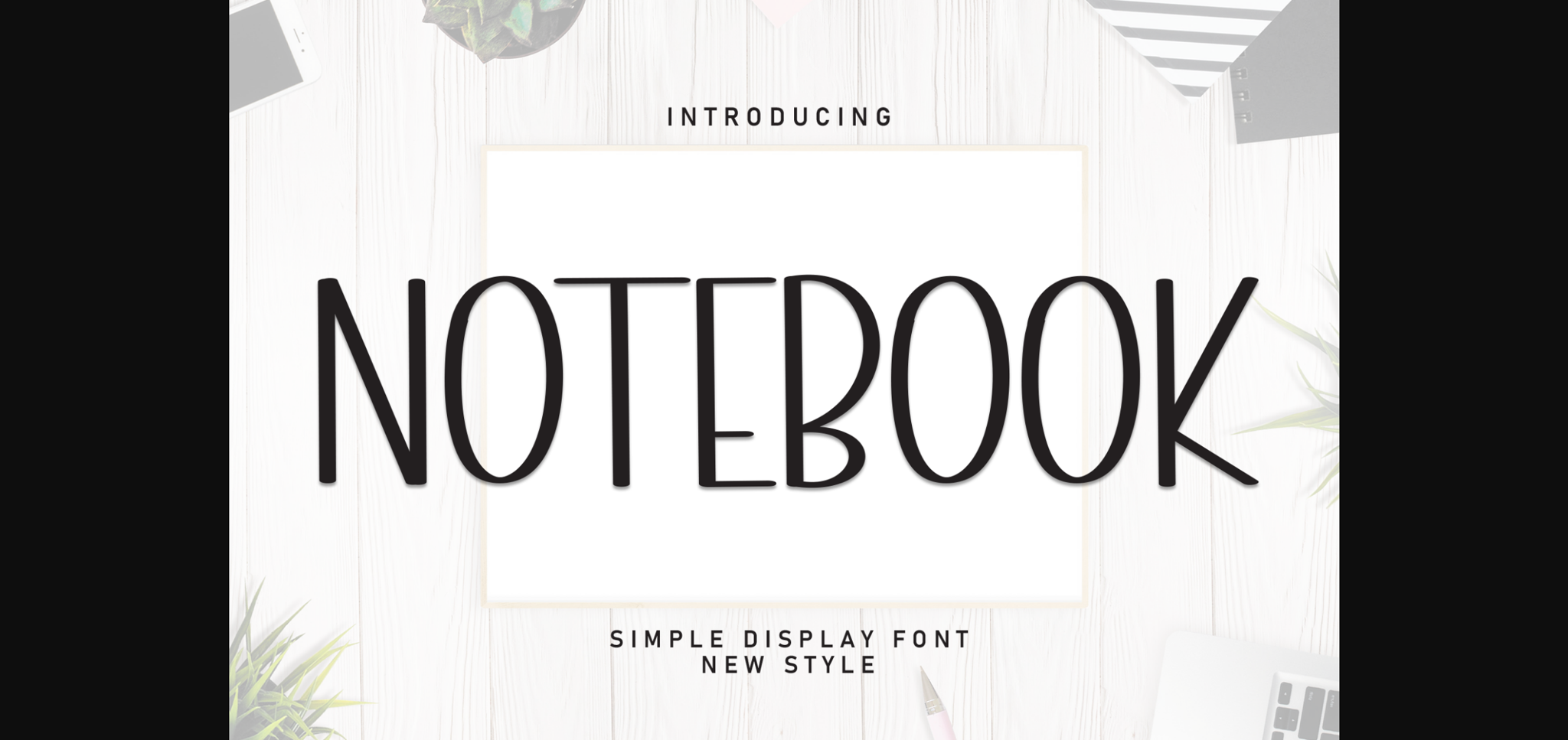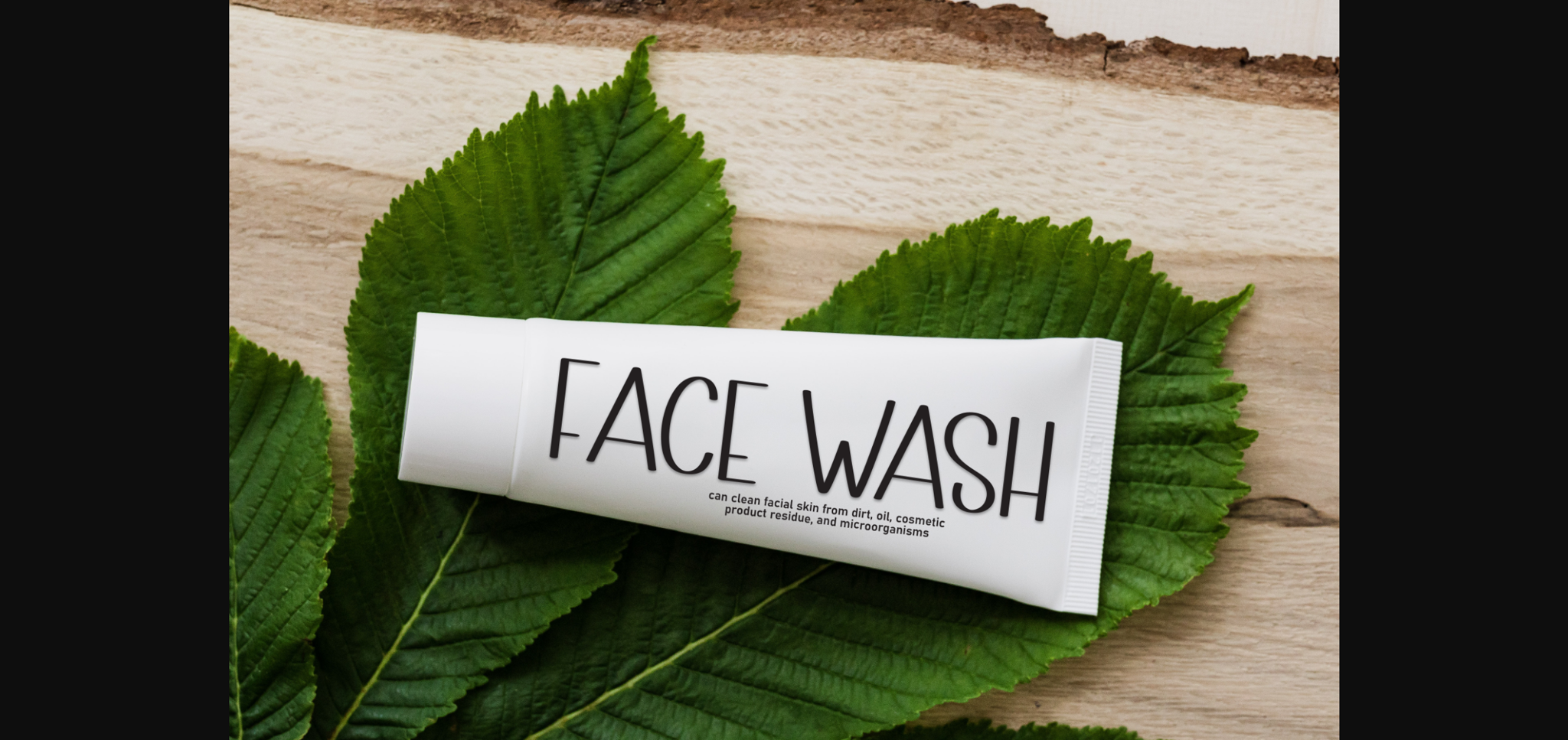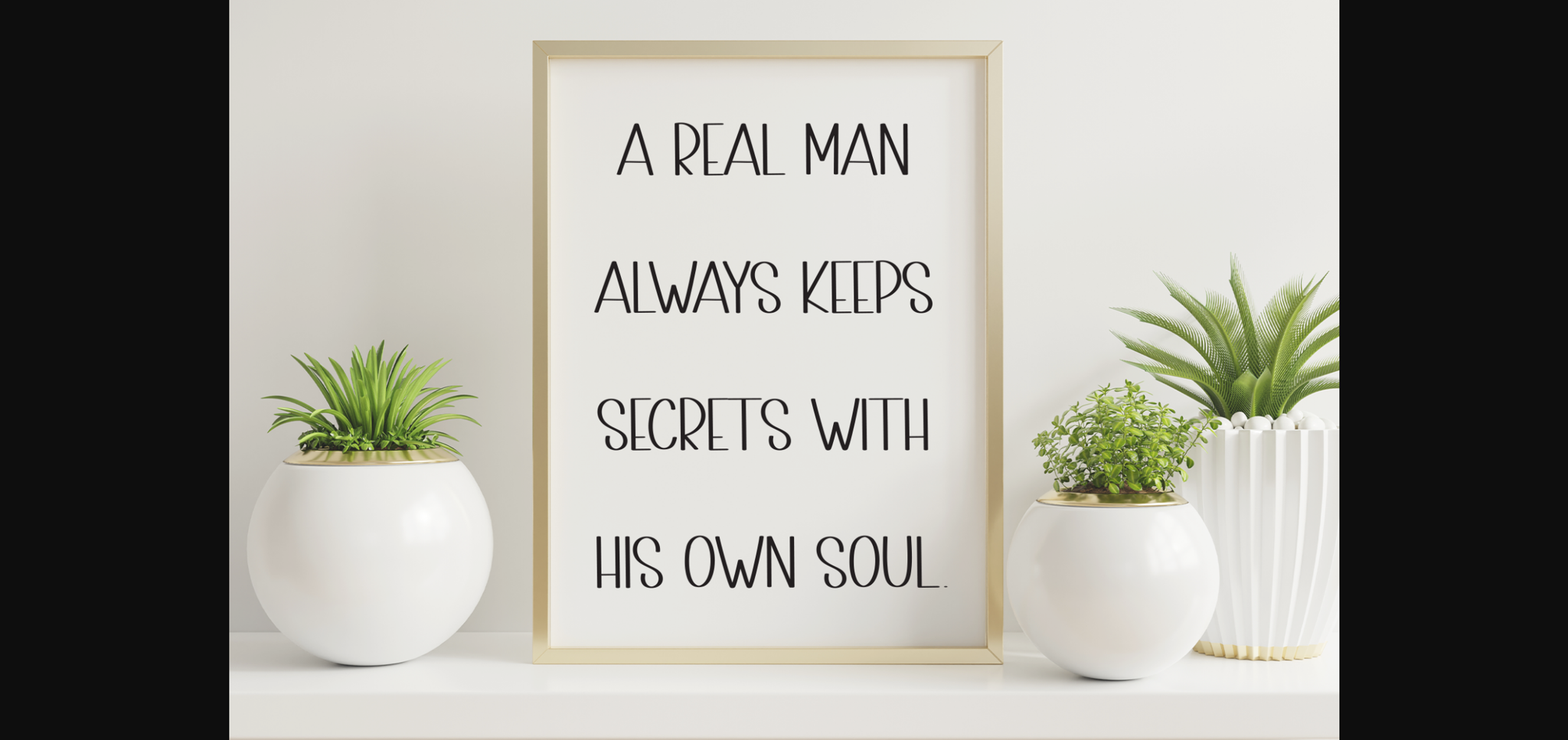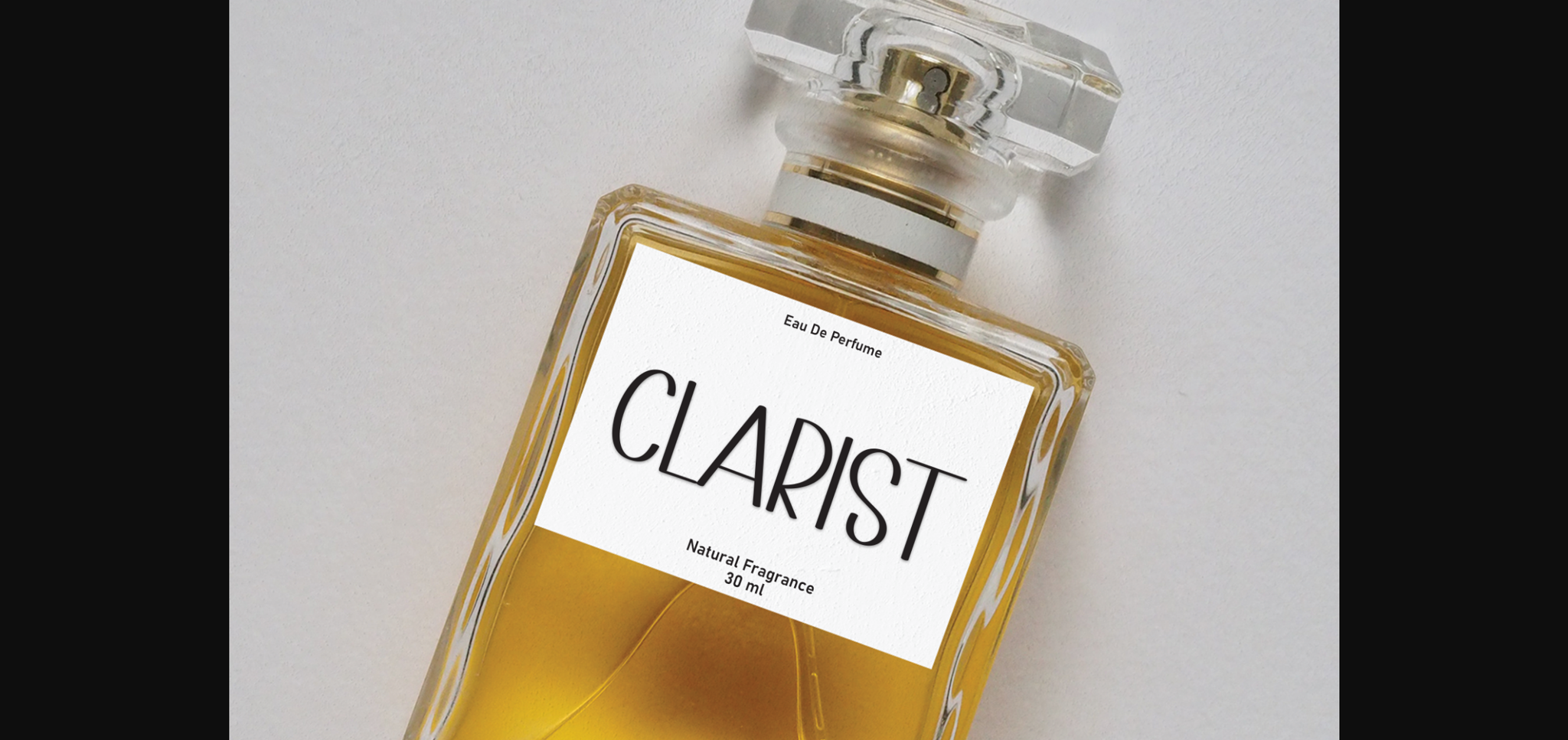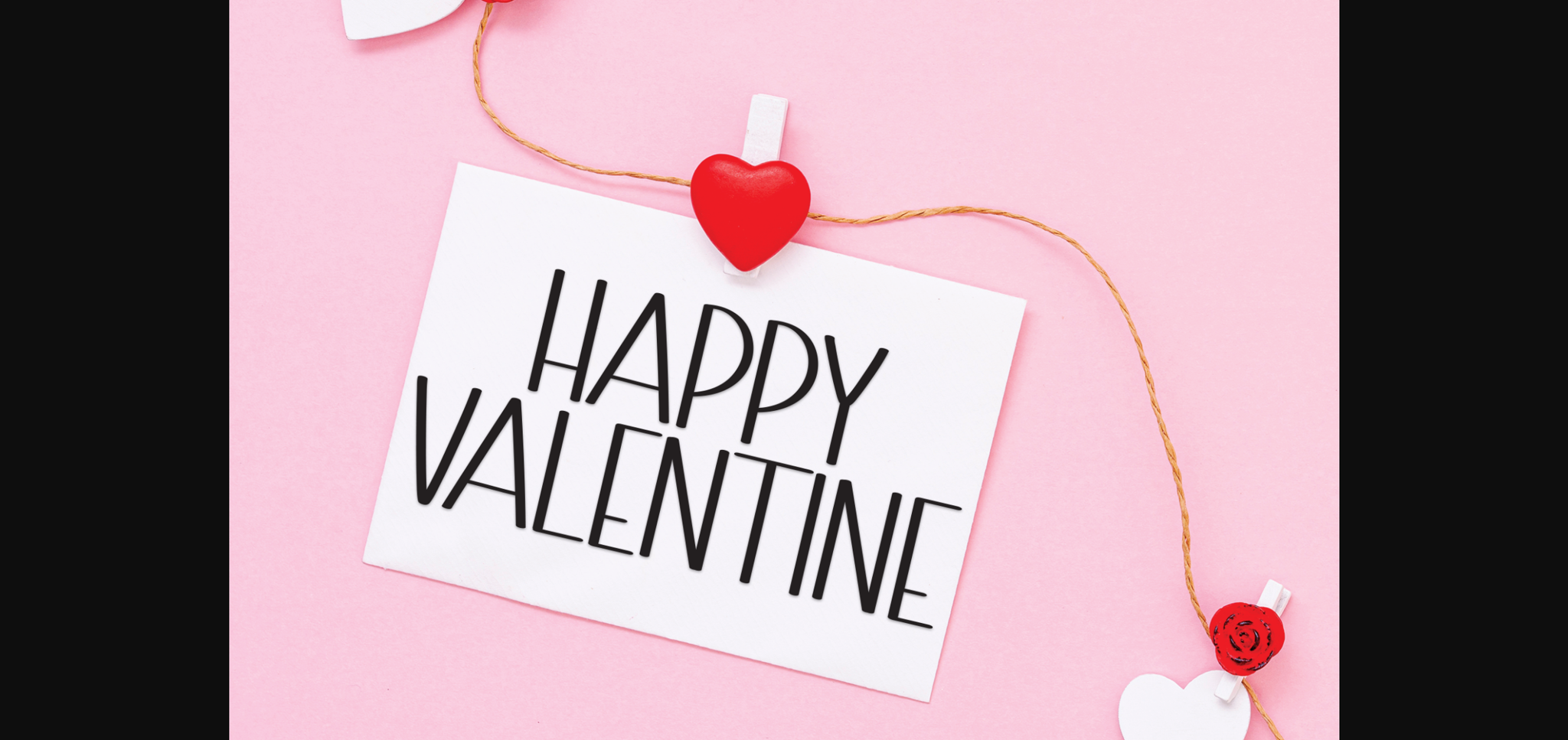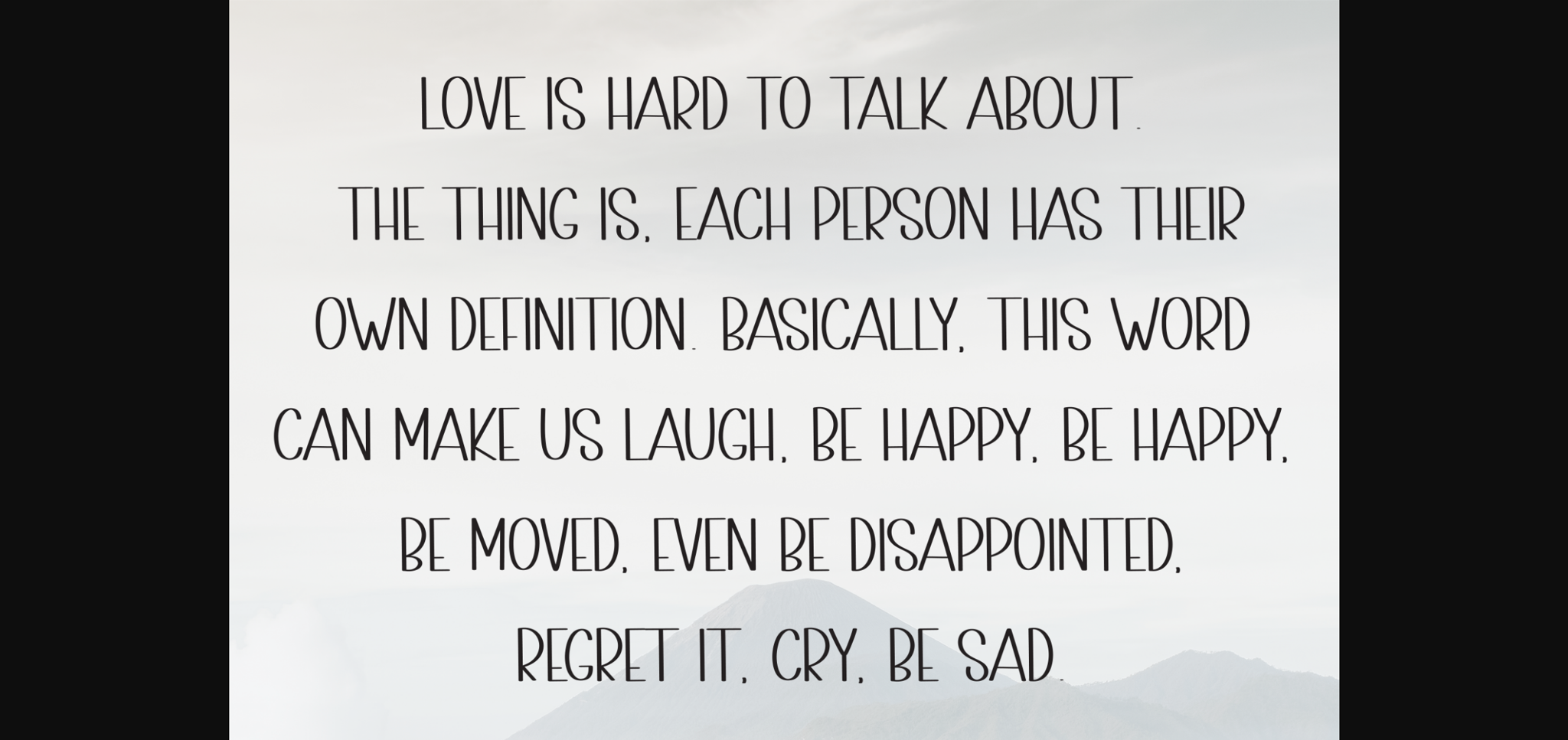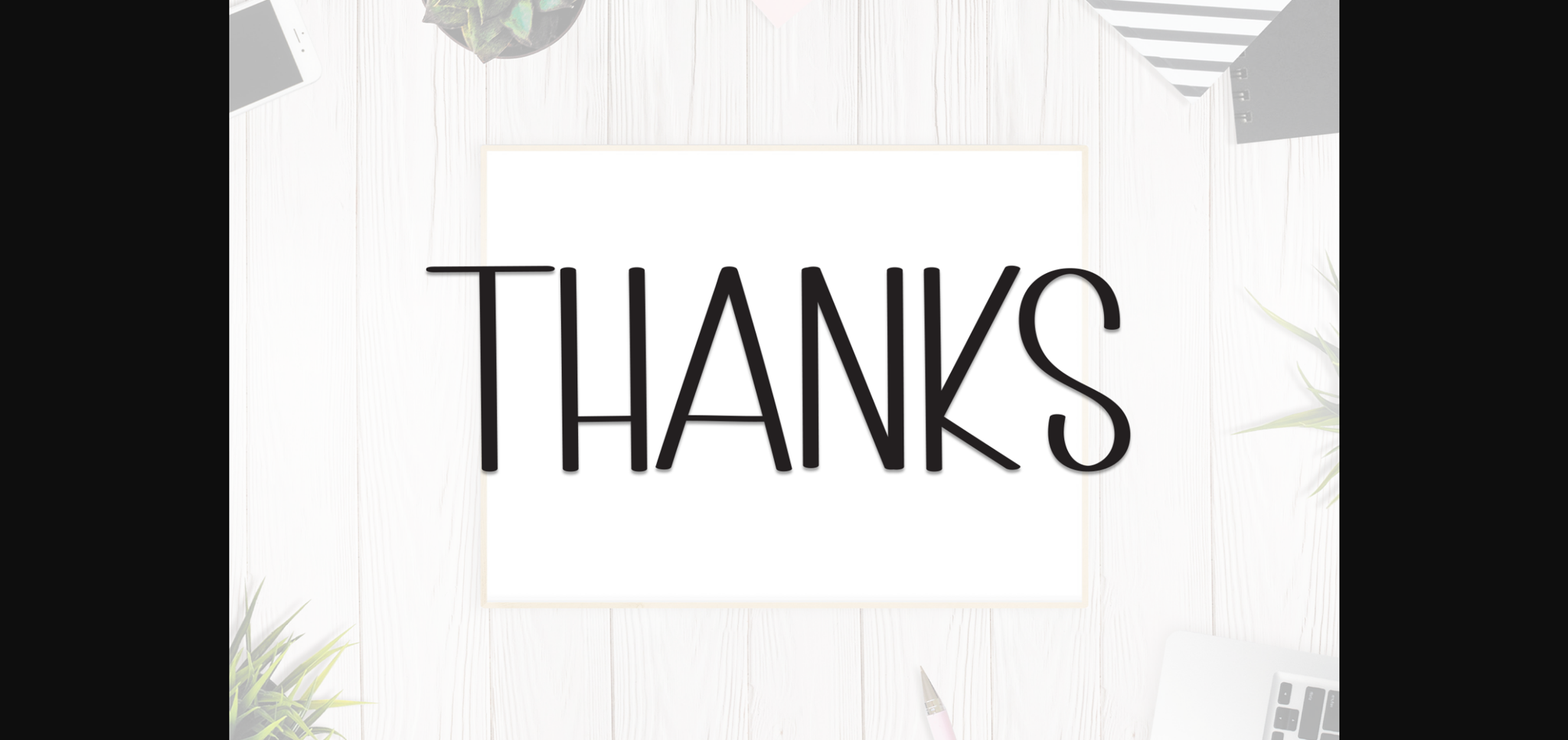
HomeSans Serif FontsNotebook Font Sans Serif Fonts Notebook Font FacebookXPinterestWhatsApp 1 of 9 ... Notebook Font Poster 2... Notebook Font Poster 3... Notebook Font Poster 4... Notebook Font Poster 5... Notebook Font Poster 6... Notebook Font Poster 7... Notebook Font Poster 8... Notebook Font Poster 9... About Notebook Font Notebook is a lovely and timeless sans serif font. It is the best choice for creating eye catching logos, branding and quotes. Every letter has a unique and beautiful touch, which will make your design come alive! DOWNLOAD NOW People also explored Billortte Font Baby Signature Font Obera Font March Wonderful Font Scoottburg Font Little Beach Font Honeymoon Font Art Brush Font Prestige Font 255 0 TagsNotebook Font Previous articleSpecial February FontNext articleGinger Font LEAVE A REPLY Cancel reply Comment: Please enter your comment! Name:* Please enter your name here Email:* You have entered an incorrect email address! Please enter your email address here Website: Save my name, email, and website in this browser for the next time I comment. Personal Use Free Kumadinya Personal Use Free Read more about this font Manbow Personal Use Free Read more about this font Sarwendah Personal Use Free Read more about this font Nickainley Personal Use Free Read more about this font BLOG Free vs Paid Fonts: Why Investing in Premium Fonts Is Worth It Free vs Paid Fonts: Why Premium Fonts Are Worth It in 2025 The debate of free vs paid fonts continues in the design world. While... Best Fonts for YouTube Videos: Make Your Thumbnails Stand Out Free Fonts Risk: Why Free Fonts Can Be Dangerous for Designers Top 10 Handwritten Fonts That Elevate Your Designs